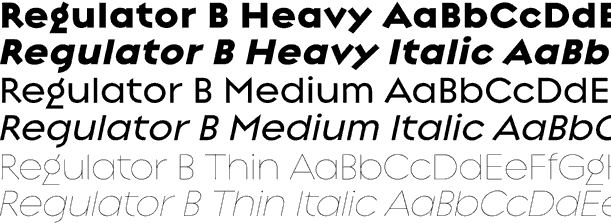
Regulator B
Font Family by Device
Regulator B is a six-style sans serif family from Device with a sharp, stylized New Wave feel rooted in 1980s design. Its angled construction and italic companions give it a fast, graphic presence that feels bold, synthetic, and unmistakably display-driven.
The family includes Thin, Medium, and Heavy weights, each with matching italics, making it easy to shift from lean and edgy to more forceful headlines while keeping the same visual attitude. If you want lettering that brings a retro-futurist tone to the page, this set offers a flexible range inside a tightly focused look.
Regulator B is especially well suited to posters, album-inspired graphics, branding, packaging, apparel, and other display work where a distinctive 1980s voice can do the heavy lifting. It’s a strong choice for projects that call for crisp sans serif forms with a more experimental, image-forward personality.